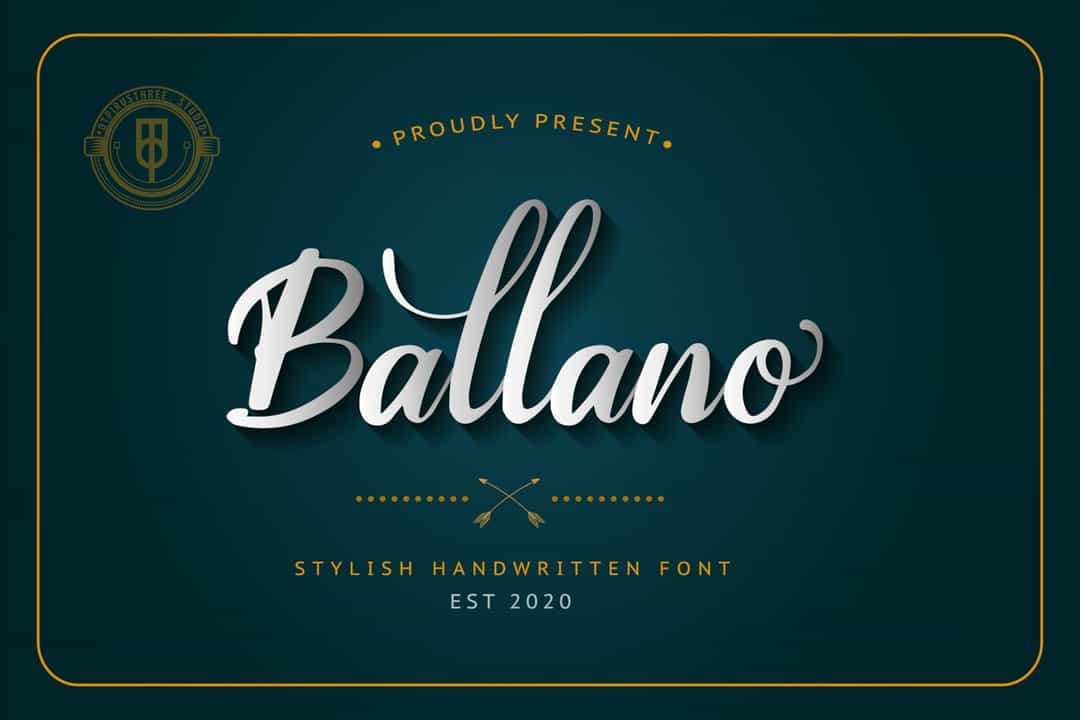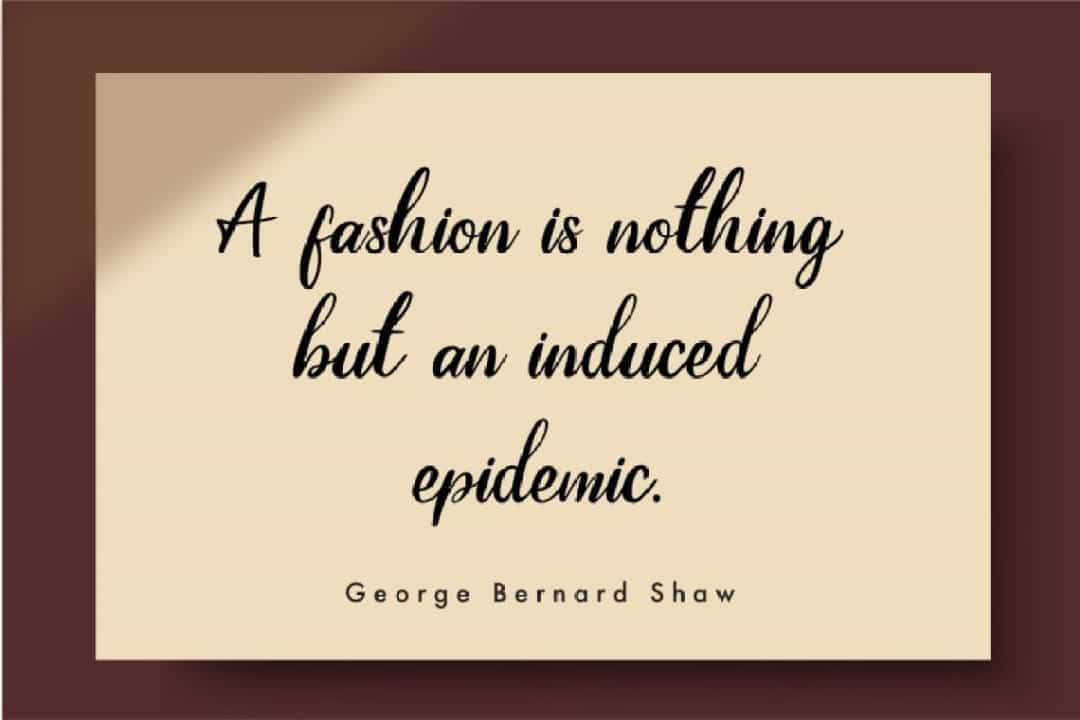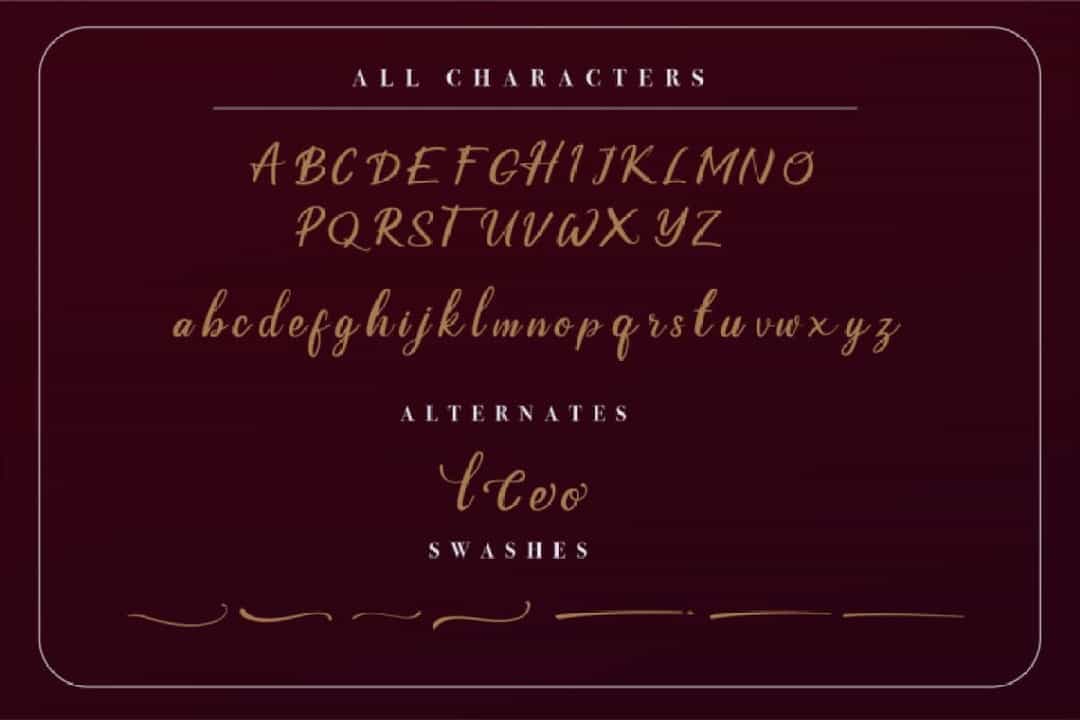
Ballano script font is perfect script font that is created by writing it very gracefully and in style. Combination of classic look and real Calligraphy, this is a great font that you can use in your DIY projects.